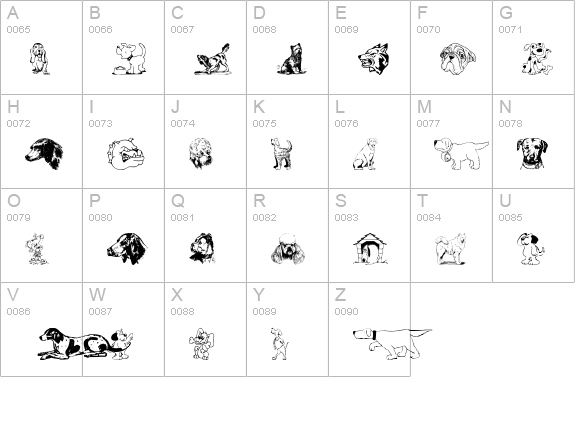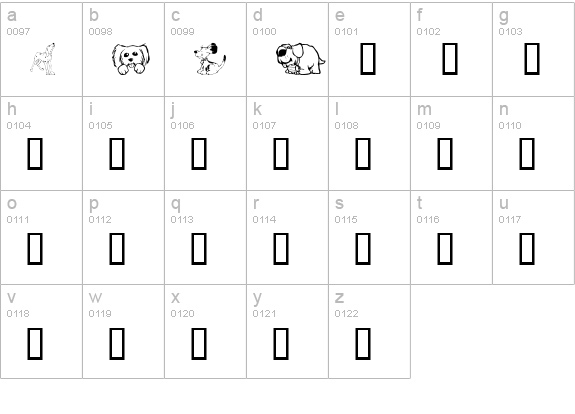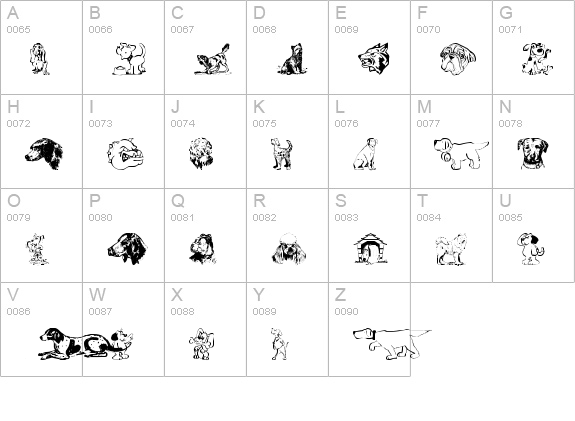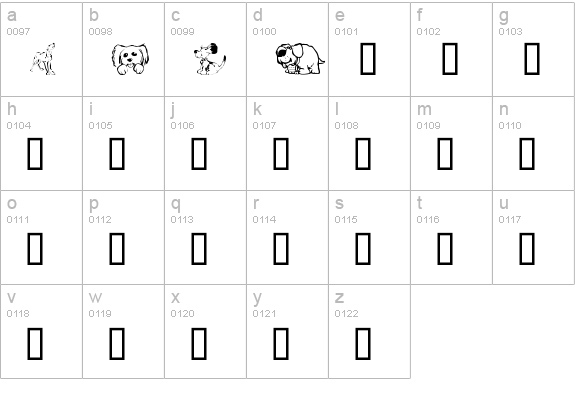
DoggArt Font Details
Introducing DoggArt font - a playful and whimsical typeface that is perfect for adding a touch of fun to your designs. This font features quirky characters with a hand-drawn aesthetic, making it ideal for projects that require a unique and charming look. DoggArt font is versatile and can be used for a variety of design projects, from greeting cards to posters to branding materials. The best part? DoggArt font is completely free to download at FontsMarket.com! So go ahead and unleash your creativity with this delightful font that will surely make your designs stand out. Get your paws on DoggArt font today and let your imagination run wild!